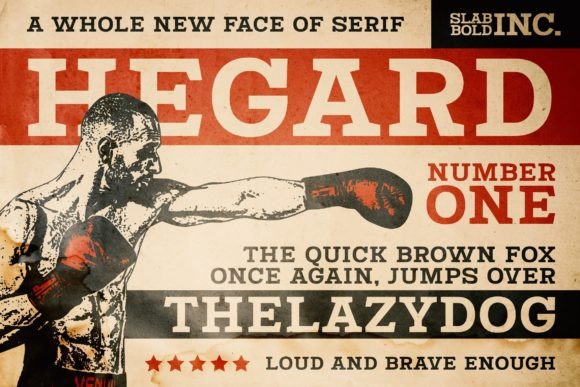
Hegard Font: The Punch That Speaks Louder than Words
In the realm of visual communication, fonts hold the power to transform ordinary words into extraordinary expressions. They possess the uncanny ability to evoke emotions, set the tone, and leave a lasting impact on the audience. Meet Hegard Font, the ultimate serif font family that embodies boldness, strength, and vintage charm.
Hegard Font: A Blast from the Past with a Modern Twist
Inspired by the iconic boxing posters of the 1980s, Hegard Font carries a distinct retro flavor with a contemporary twist. Its loud and audacious personality makes it the perfect choice for designers seeking to make a statement. Whether it's a logo, branding design, poster, YouTube thumbnail, album artwork, or book cover, Hegard Font will add an unforgettable touch to your creative projects.
Unleash the Brave Voice Within: Hegard Font for the Fearless
Hegard Font is more than just a font; it's a visual manifestation of courage and self-expression. Its bold strokes and confident curves embolden you to unleash the brave voice within, to speak your truth with conviction. With Hegard Font, your designs will radiate strength and determination, leaving an indelible mark on your audience.
Hegard Font: Versatility at Its Finest
While Hegard Font exudes an undeniable retro charm, its versatility extends far beyond the vintage aesthetic. Its carefully crafted characters lend themselves effortlessly to a wide range of design styles, from classic to modern and everything in between. Whether you're working on a contemporary logo, a minimalist poster, or a retro-inspired album cover, Hegard Font will seamlessly adapt to your vision, adding a touch of timeless elegance to your creations.
Hegard Font: The Ultimate Choice for Impactful Design
If you're looking for a font that commands attention, provokes emotion, and leaves a lasting impression, Hegard Font is the answer. Its vintage-inspired design, coupled with its versatility and emotional resonance, makes it the ultimate choice for designers seeking to create impactful visual experiences.